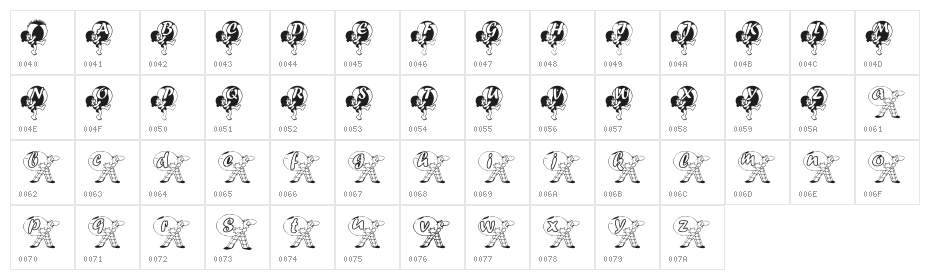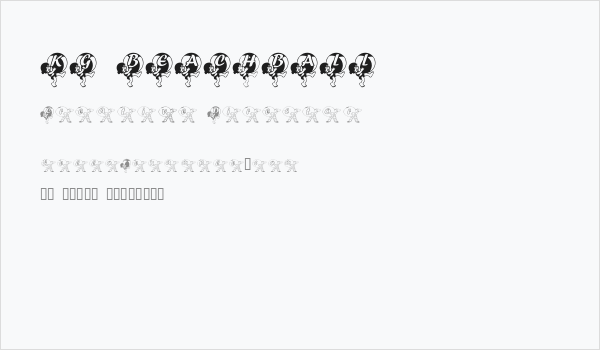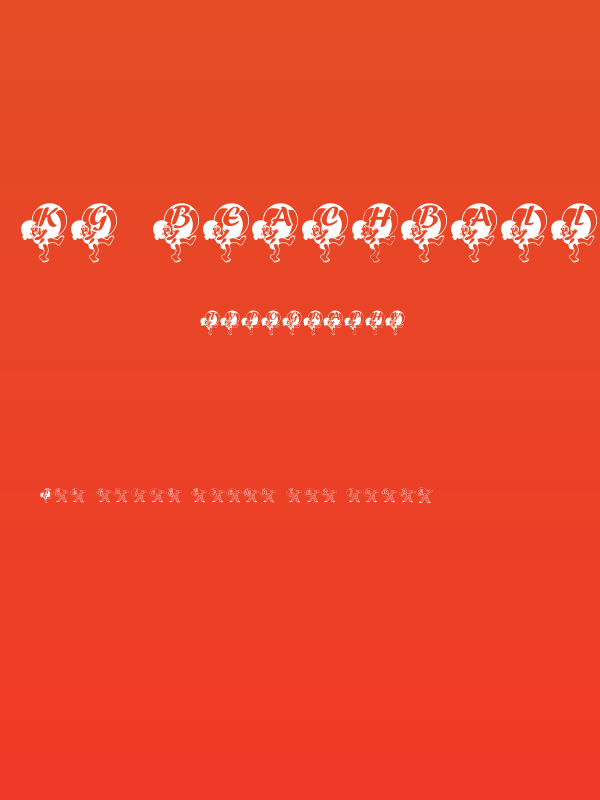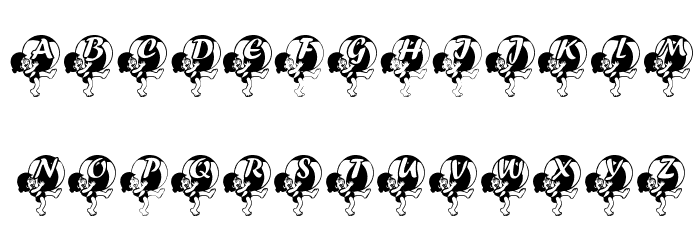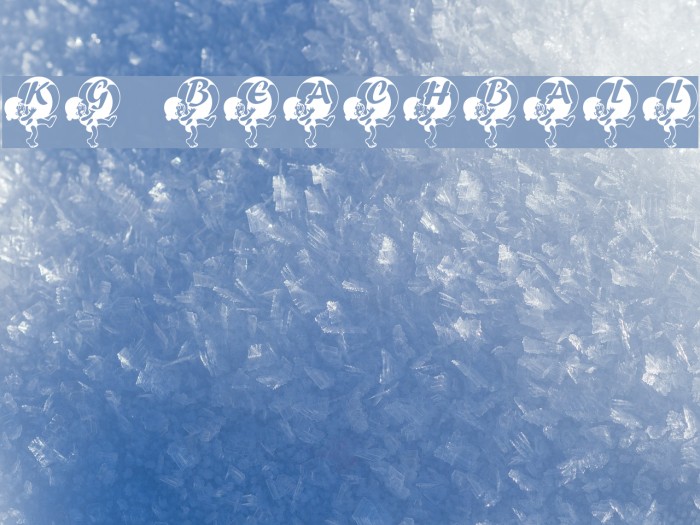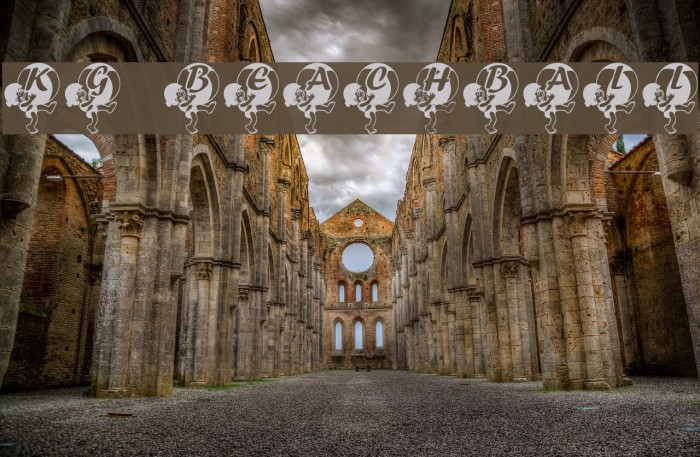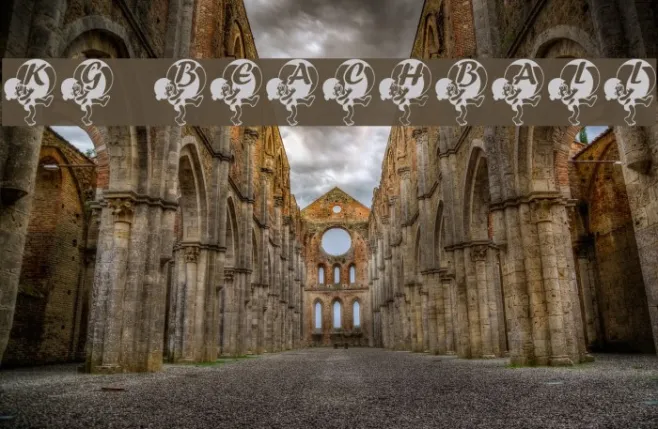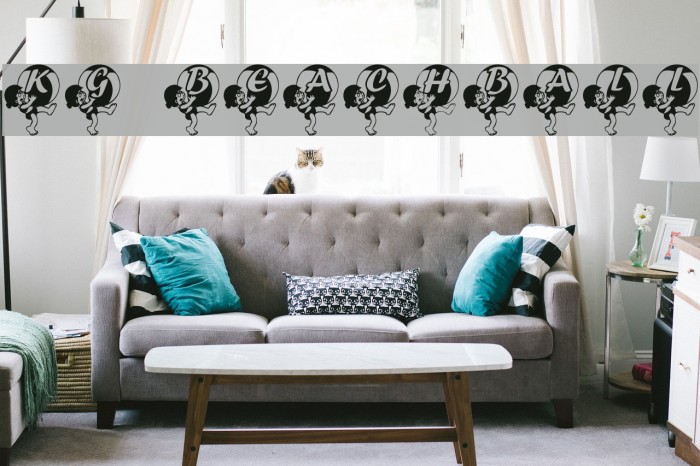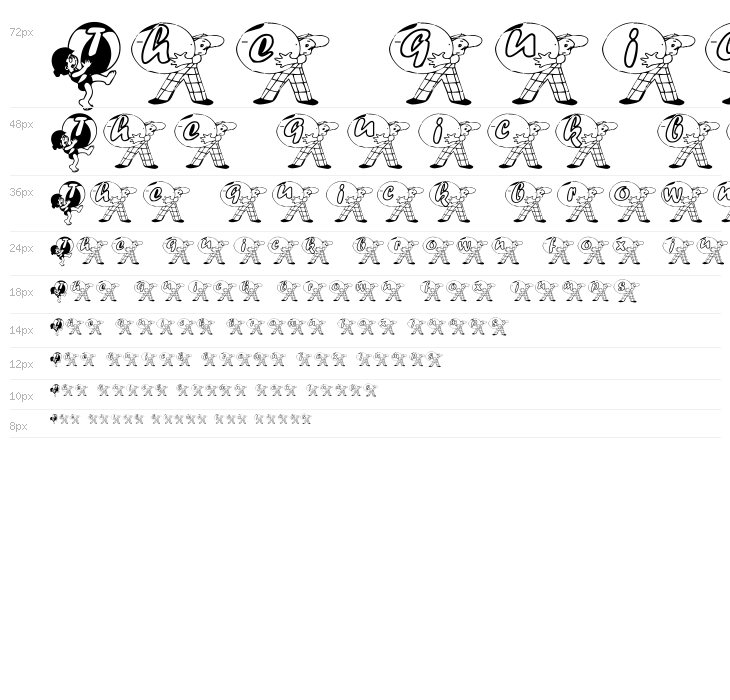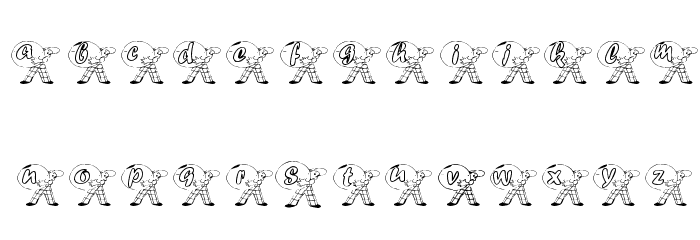
KG BEACHBALL Font
KG BEACHBALL Description
This playful and whimsical font features each letter encapsulated within a beach ball, accompanied by a cheerful character. The uppercase letters are bold and prominent, with a high contrast between the thick strokes of the letters and the thin outlines of the beach balls. The lowercase letters maintain a similar style, with each letter also placed within a beach ball, adding a sense of fun and creativity. The font includes both uppercase and lowercase alphabets, numbers, and a selection of special characters, all maintaining the same playful theme. The overall design is decorative and ideal for projects that require a lighthearted and engaging visual element.
| Proposed Projects | Ideal for children's books, party invitations, playful branding, and any project needing a whimsical touch. |